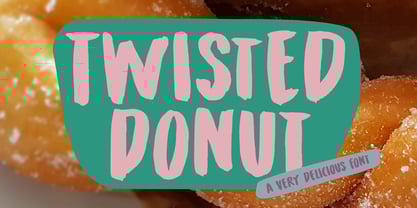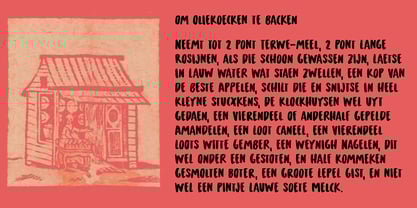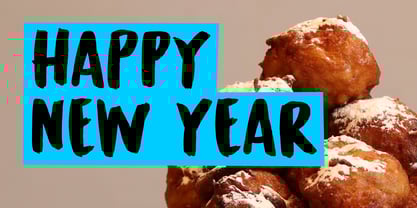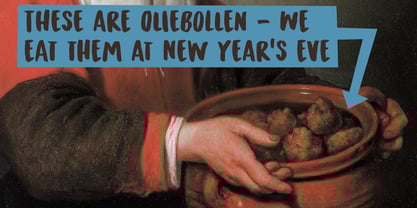
Twisted Donut
by Hanoded
The Twisted Donut Font Family was designed by David Kerkhoff and published by Hanoded. Twisted Donut contains 2 styles and family package options.
This year I have traveled to Japan 3 times. I used to be a tour guide, guiding groups around the world, but ever since my kids were born I have stayed at home. The kids have grown, so I have picked up guiding a few tours now and then. In Japan they have twisted donuts, which are delicious! So this font was named after my favourite snack!
Twisted Donut was made using a horse hair brush and Chinese ink. It comes with extensive langue support and a set of alternates, so enjoy!
About Hanoded
Hanoded is run by Dutchman David Kerkhoff. His fonts are a mishmash of styles, as he just creates whatever pops into his head. You will find a lot of brush fonts in his collection, as his favourite tools are brushes and Chinese ink, with cartoon style fonts and script fonts complementing his repertoire. Aside from making fonts, David occasionally guides tours in far-flung places, renovates his '30's house and tries reasoning with his wife and (teenage) kids. Not an easy task!